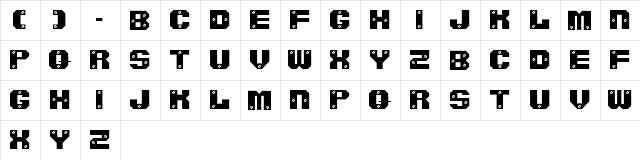
ScrewedSW Regular
Design Context for ScrewedSW Typeface
ScrewedSW is a composed and adaptable typeface that performs quietly and consistently across a wide range of design contexts.